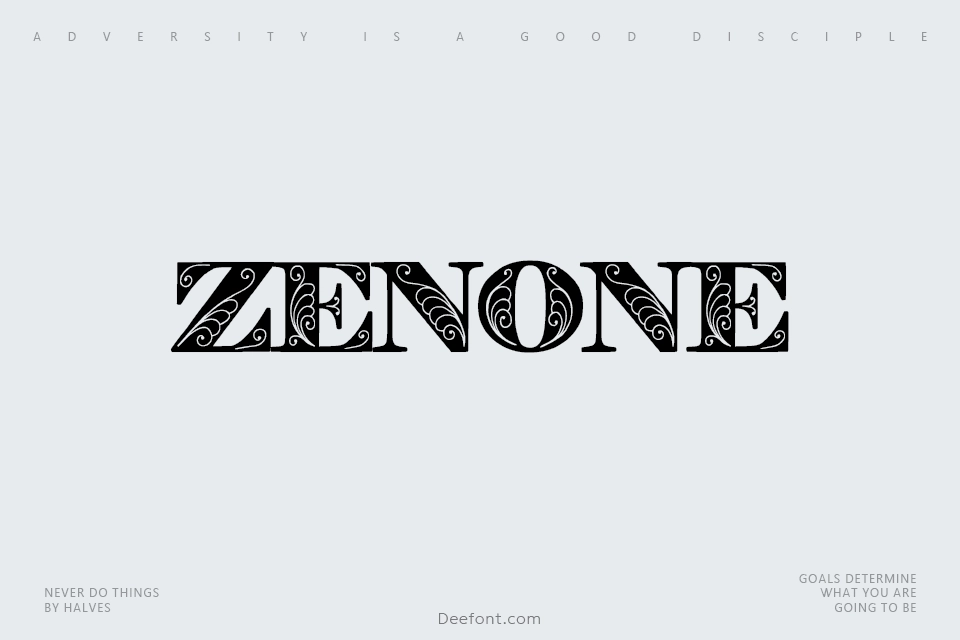
Zenone Font
Zenone is an elegant hand-drawn decorative typeface created by Eva Barabasne Olasz through Digital Typeface Studio. This versatile display font features charming, sketched letterforms perfect for creative projects including invitations, branding, and artistic designs. The free demo version offers a preview of the full character set, while the complete commercial version provides uppercase letters, lowercase letters, numerals, punctuation marks, and currency symbols for comprehensive typography needs.